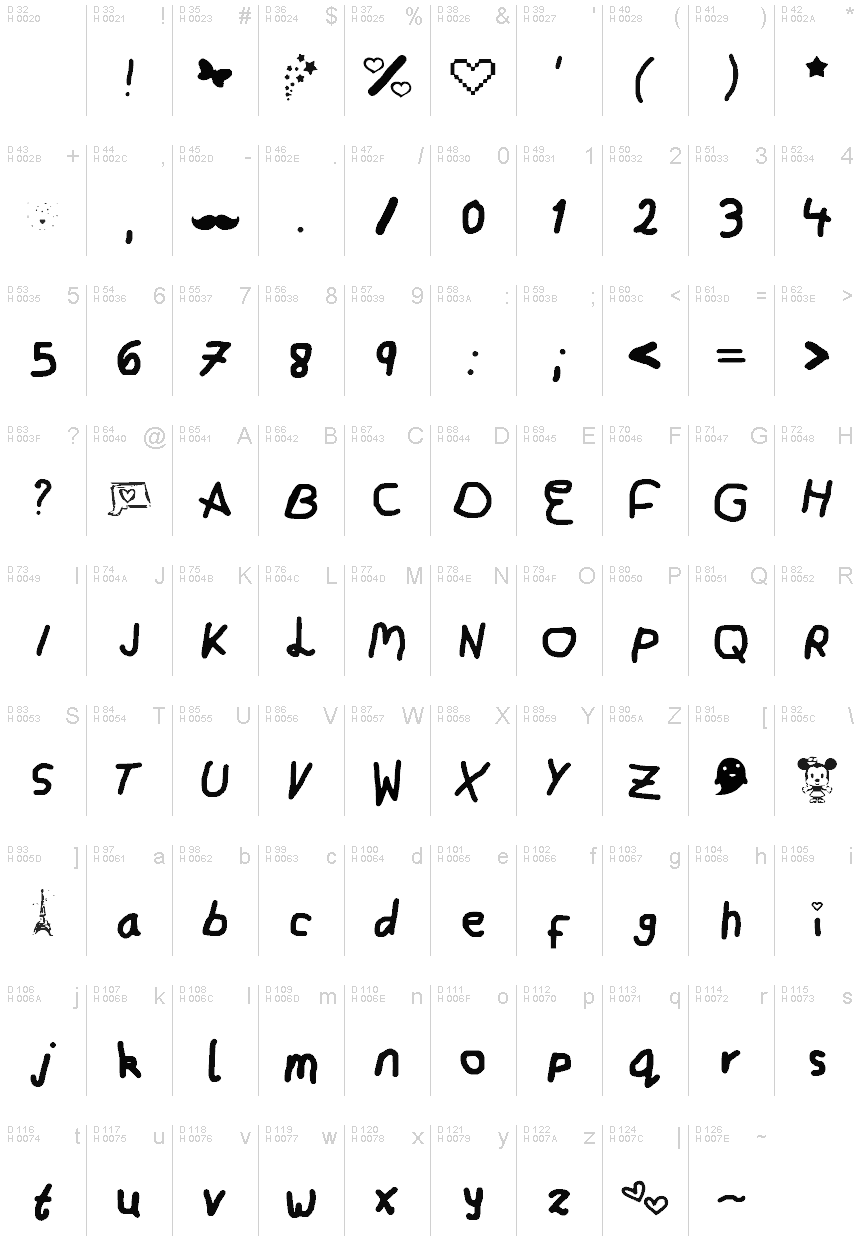
MartyyFont
Martyy Font by Martynaa is a captivating handwritten typeface that exudes a distinct charm and personality. Its organic, free-flowing strokes convey a sense of warmth and authenticity, inviting the viewer to engage with the text on a personal level. The fluid, expressive letterforms possess a delightful irregularity, lending an artisanal quality that adds depth and character to any design. Whether used for branding, editorial layouts, or creative projects, Martyy Font's expressive flair and unique aesthetic make it a versatile choice that can elevate the visual impact of your work.
Martyy Font's versatility shines through its ability to adapt to a wide range of design applications. Its handcrafted aesthetic lends itself particularly well to projects that aim to convey a sense of artistry, individuality, or a personal touch, such as in wedding stationery, packaging, or even social media content. The font's effortless charm and legibility also make it an excellent selection for headlines, titles, and eye-catching textual elements that need to captivate the audience.